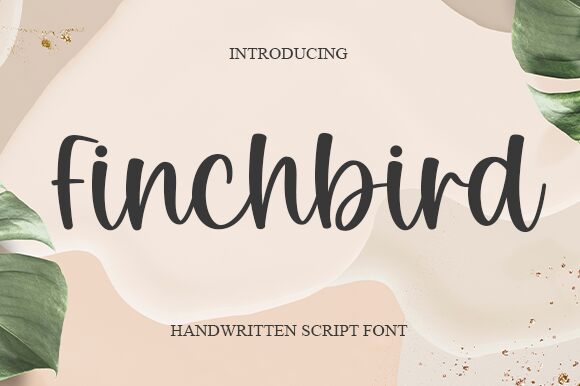
Finchbird
Finchbird font, crafted by Graphix Line Studio, captures the essence of a handwritten style with its flowing, cursive elegance. This free font boasts a lively and personal touch that exudes warmth and creativity. The fluid strokes and playful loops make it ideal for designs that seek to convey an approachable, artistic vibe.
Perfect for personal projects like invitations, greeting cards, or branding initiatives that require a human touch, Finchbird adapts beautifully to various contexts. Its aesthetic appeal lies in its ability to mimic authentic handwriting while remaining legible and stylish.